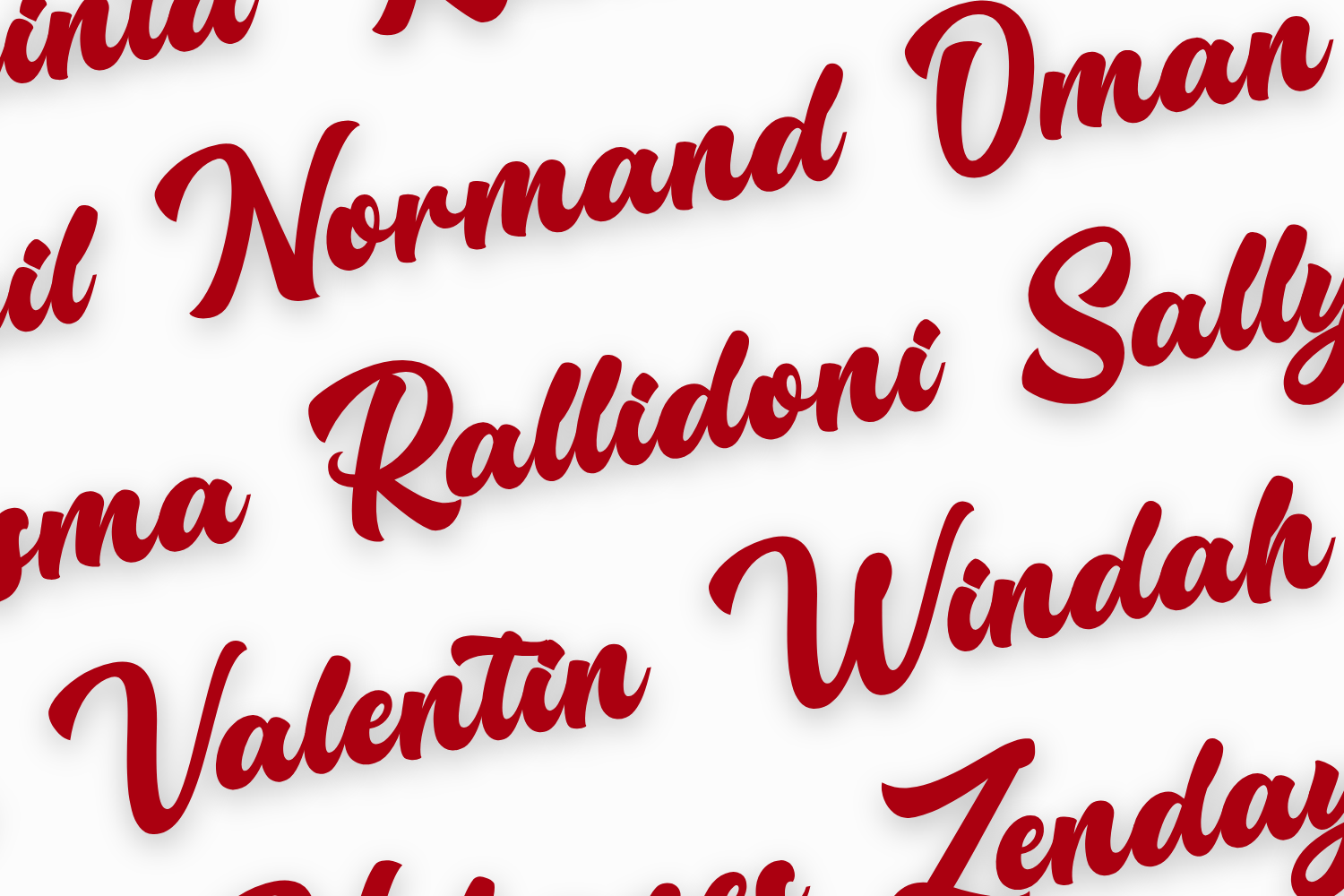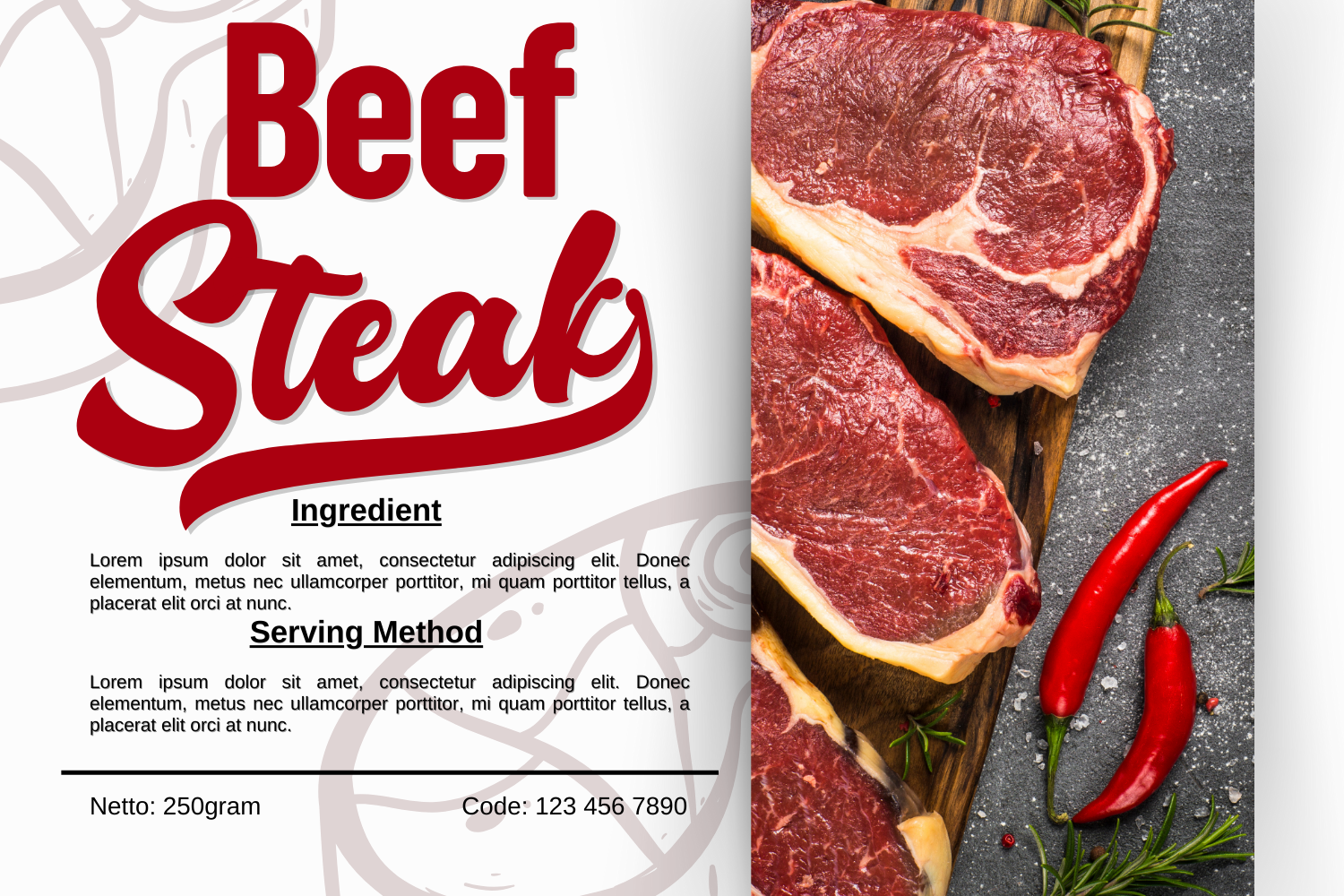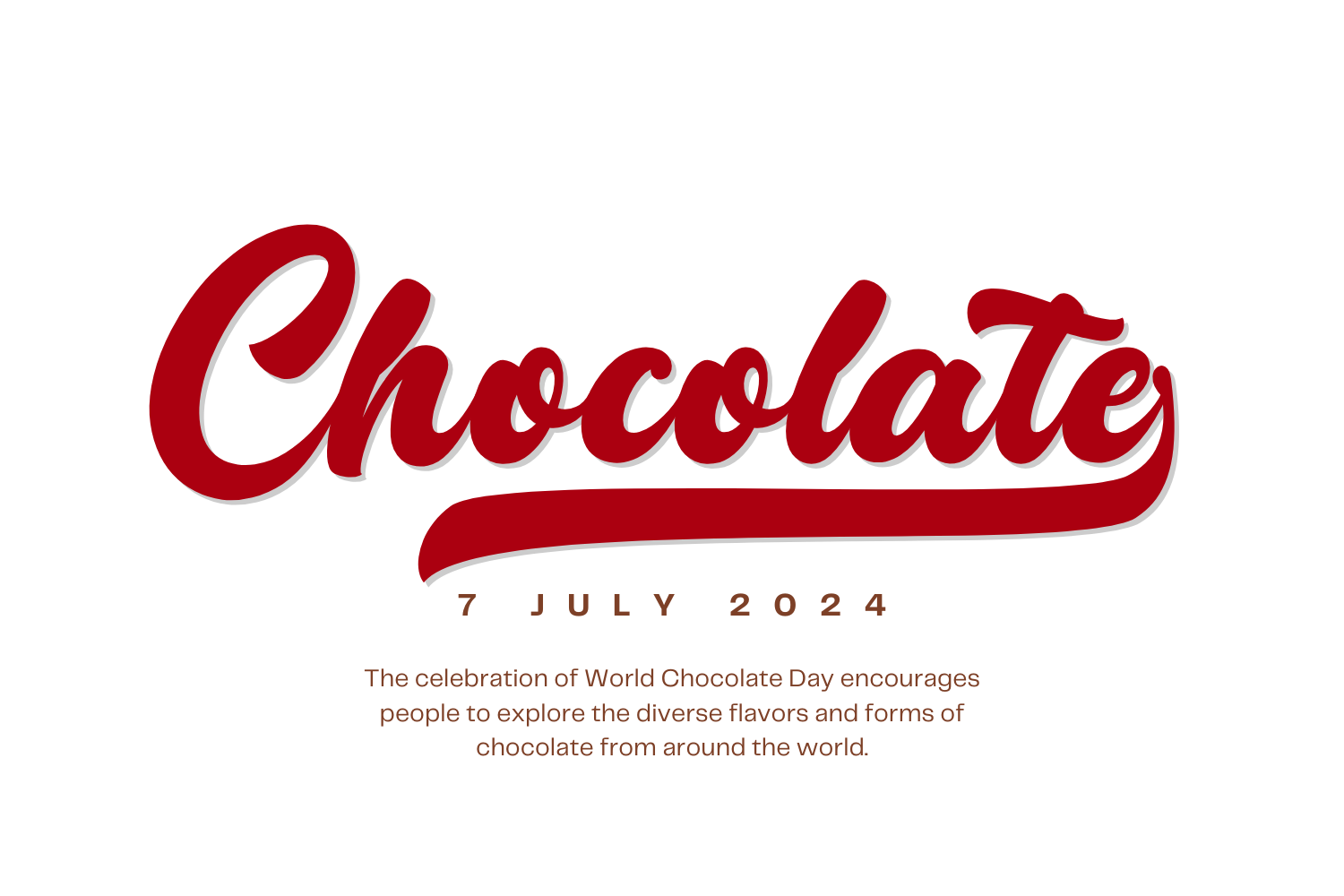
Rallidoni Font
Rallidoni Font is a sophisticated and stylish typeface that blends classic elegance with modern flair. Its graceful curves and refined details make it perfect for luxury branding, editorial designs, and high-end invitations. With a balance of bold presence and delicate strokes, Rallidoni exudes charm, confidence, and timeless beauty, making every design feel effortlessly upscale and captivating.